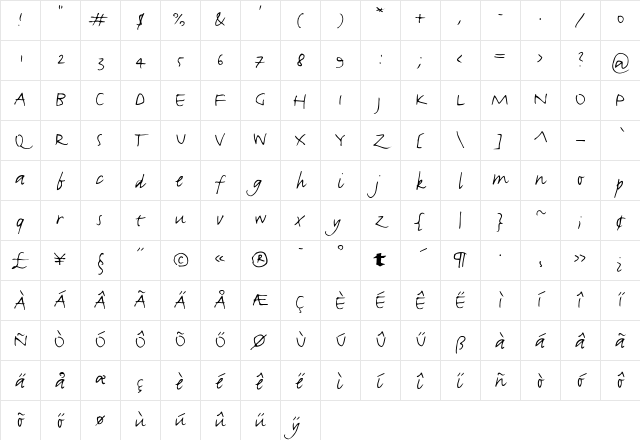
HW, ScriptFun - FFJustlefthand Regular Free Font
HW, ScriptFun - FFJustlefthand Regular
Design Context for HW, ScriptFun - FFJustlefthand
HW, ScriptFun - FFJustlefthand has an approachable, lighthearted character - its loose, expressive forms are well-suited to children's content, casual branding, and fun-first design.
Font Pairing: Pairs well with a rounded or humanist sans for body copy, maintaining the friendly tone without relying on HW, ScriptFun - FFJustlefthand to carry extended reading.
Pro Tip: Use HW, ScriptFun - FFJustlefthand at larger display sizes where its expressive character can land. Pair with a clean, simple sans for body copy to maintain readability.